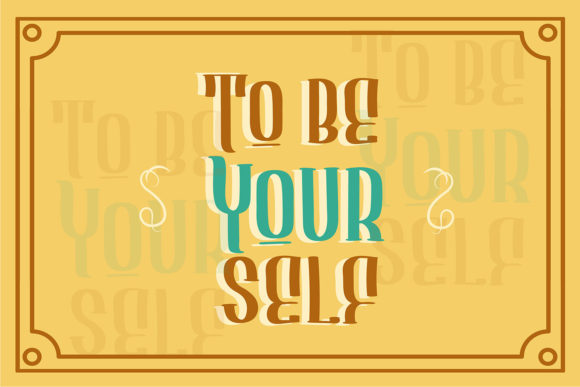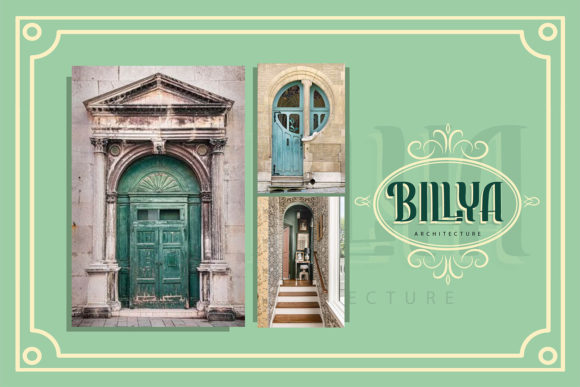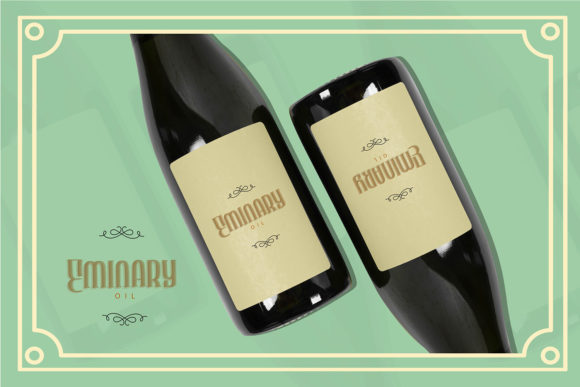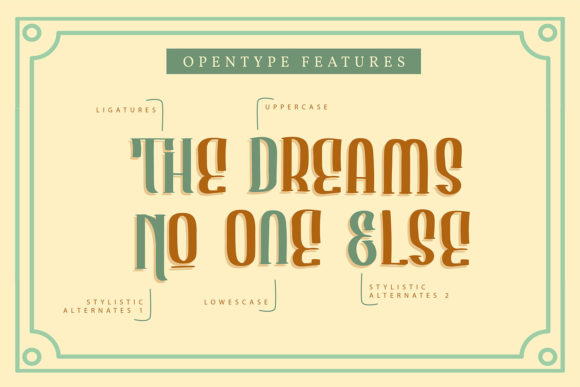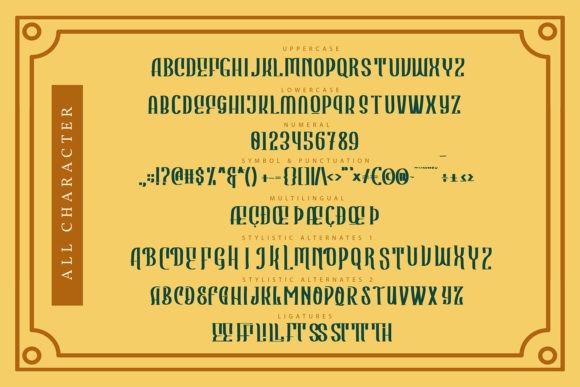
Introducing Afterlife Font: A Timeless Classic for Designers and Crafters
Are you on the hunt for a font that exudes elegance, sophistication, and a touch of vintage charm? Look no further than Afterlife Font, a stunning display font that’s perfect for a wide range of design projects. In this article, we’ll dive into the world of Afterlife Font, exploring its features, benefits, and uses, and why it’s a must-have for designers and crafters alike.
What is Afterlife Font?
Afterlife Font is a classic and vintage display font that’s designed to make a statement. Its elegant and bold look is perfect for creating eye-catching logos, branding materials, invitations, stationery, wedding designs, social media posts, and more. With its timeless appeal, Afterlife Font is sure to add a touch of sophistication to any design project.
Key Features of Afterlife Font
- Elegant and Bold Design: Afterlife Font boasts an elegant and bold design that’s perfect for making a statement.
- Vintage Charm: With its classic look and feel, Afterlife Font is perfect for designers and crafters who love vintage design.
- PUA Encoded: Afterlife Font is PUA encoded, which means you can access all of the glyphs and swashes with ease.
- Multipurpose: Afterlife Font can be used for a wide range of design projects, from logos and branding to invitations and social media posts.
Benefits of Using Afterlife Font
So, why should you choose Afterlife Font for your design projects? Here are just a few benefits of using this amazing font:
- Instant Recognition: With its bold and elegant design, Afterlife Font is sure to grab attention and leave a lasting impression.
- Versatility: Afterlife Font can be used for a wide range of design projects, making it a versatile addition to your font library.
- Ease of Use: With PUA encoding, accessing glyphs and swashes is a breeze, making it easy to get creative with your designs.
- Timeless Appeal: Afterlife Font’s classic design ensures that it will remain relevant for years to come, making it a great investment for designers and crafters.
Uses for Afterlife Font
So, what can you use Afterlife Font for? The possibilities are endless! Here are a few ideas to get you started:
- Logos and Branding: Create a stunning logo or branding materials that make a lasting impression.
- Invitations and Stationery: Add a touch of elegance to your invitations, stationery, and greeting cards.
- Wedding Designs: Create beautiful wedding designs, including invitations, programs, and more.
- Social Media Posts: Elevate your social media posts with a touch of sophistication and elegance.
- Crafting Projects: Use Afterlife Font to add a personal touch to your crafting projects, such as scrapbooking, card making, and more.
In conclusion, Afterlife Font is a timeless classic that’s perfect for designers and crafters who want to add a touch of elegance and sophistication to their design projects. With its bold and elegant design, PUA encoding, and versatility, Afterlife Font is a must-have for anyone looking to elevate their designs. Whether you’re creating logos, branding materials, invitations, or social media posts, Afterlife Font is sure to make a lasting impression.